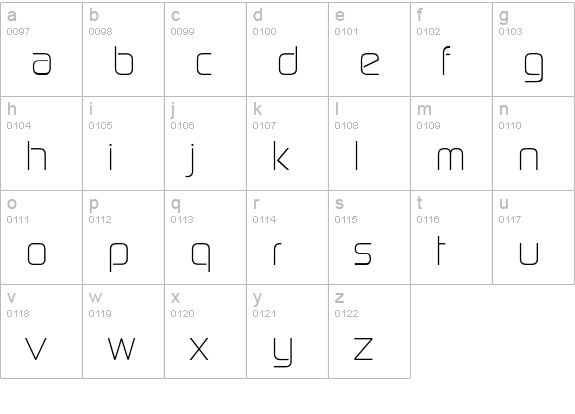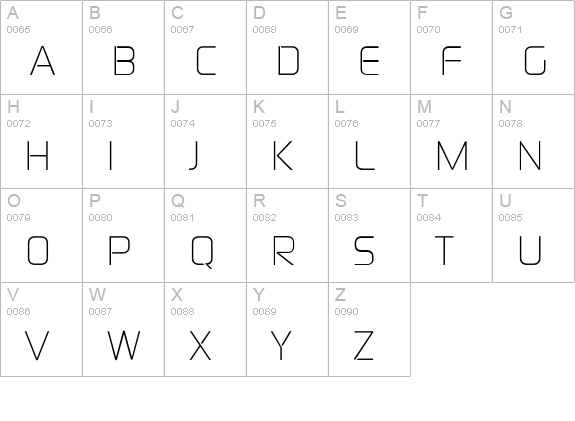
SMCPanama Font Details
SMCPanama is a stunningly elegant font that effortlessly blends modernity with sophistication. Its sleek and refined design exudes a sense of professionalism while adding a touch of artistic flair to any project. With its clean lines and flowing curves, SMCPanama captures attention and leaves a lasting impression. This versatile font is perfect for a wide range of creative endeavors, from branding and logo design to editorial layouts and web graphics. Its timeless appeal ensures that it will remain a classic choice for years to come. One of the best features of SMCPanama is that it is free! Yes, you read that right. This remarkable font is freely available to download at FontsMarket.com. So whether you are a graphic designer, a content creator, or simply a typography enthusiast, you can get your hands on this exceptional font without breaking the bank. With SMCPanama, you have the freedom to explore your creativity and bring your ideas to life. Its versatility and elegance make it a go-to choice for designers worldwide. So why wait? Head over to FontsMarket.com and download SMCPanama today and discover the endless possibilities it offers.